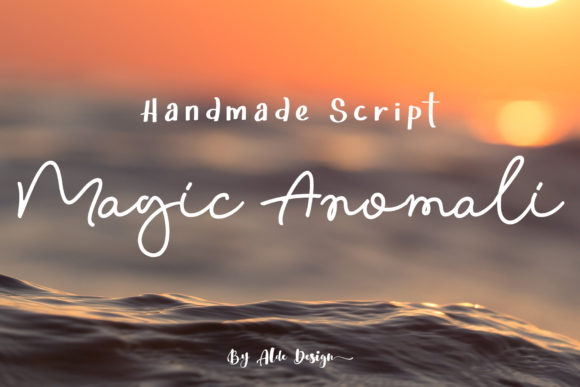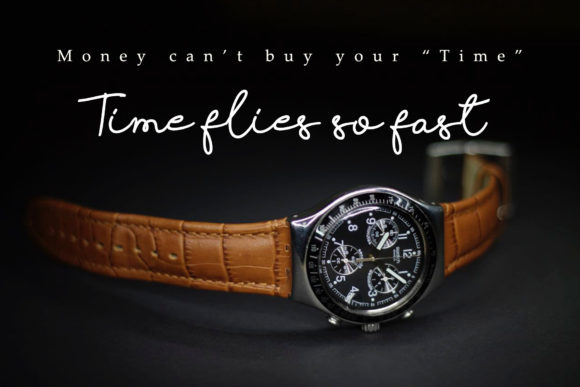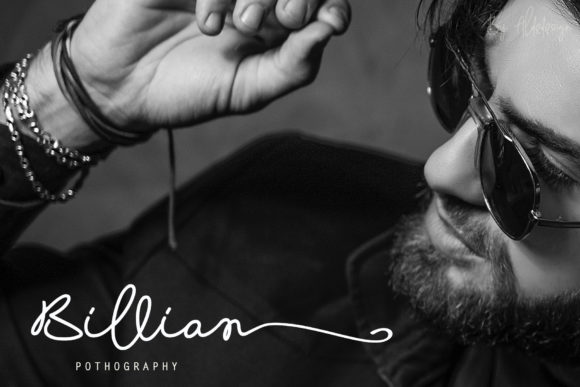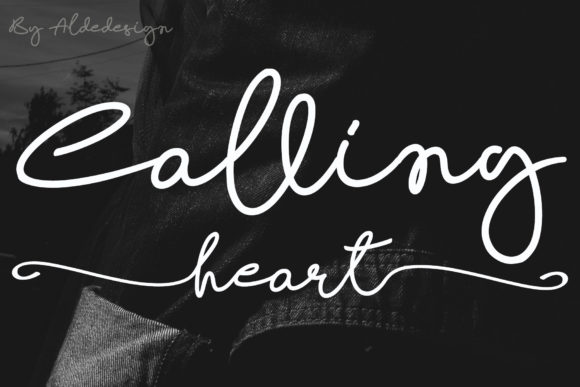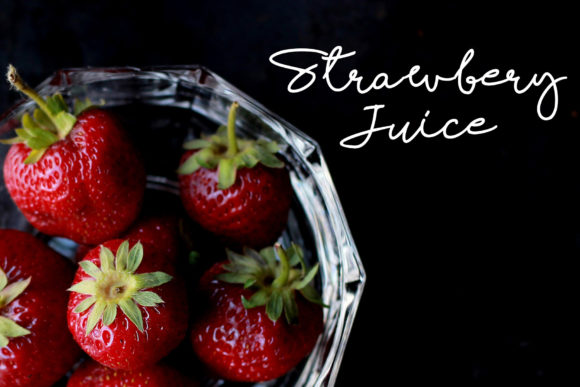
Magic Anomali Font
About Magic Anomali Font
Magic Anomali is a font with an awesome and classy taste. It has a natural, yet elegant touch and is absolutely easy to use.